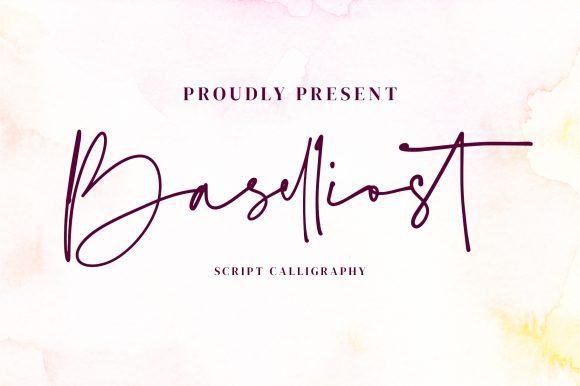
Journey into the realm of elegance and sophistication with Baselliost Handwritten Script Font - a masterpiece crafted by formatikastd, renowned for its ability to transform words into mesmerizing works of art.
Baselliost, a script font adorned with the charm of a personal touch, invites you to create designs that whisper luxury and grace. Its lines, crafted with precision, evoke a sense of timeless beauty, reminiscent of handwritten notes penned with care.
Immerse yourself in the world of French typography with Baselliost, the ideal font for capturing the essence of romance and allure. Each character, meticulously designed, pays homage to the romantic spirit of the French language, making it the perfect choice for projects seeking a touch of Parisian elegance.
Unleash your creativity and explore the endless possibilities that await with Baselliost. Its versatility transcends genres, effortlessly adding a touch of sophistication to logos, branding, invitations, and wedding designs. Let your social media posts shine with a touch of individuality, captivating your audience with visuals that leave a lasting impression.
With Baselliost, you'll discover a font that breathes life into your designs, transforming them into captivating expressions of art. Its charm lies in its ability to elevate the ordinary, turning simple words into unforgettable statements.